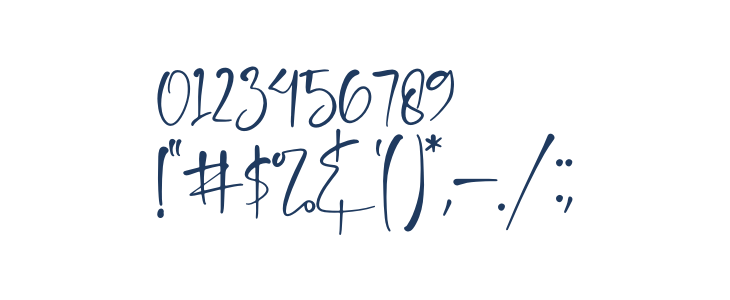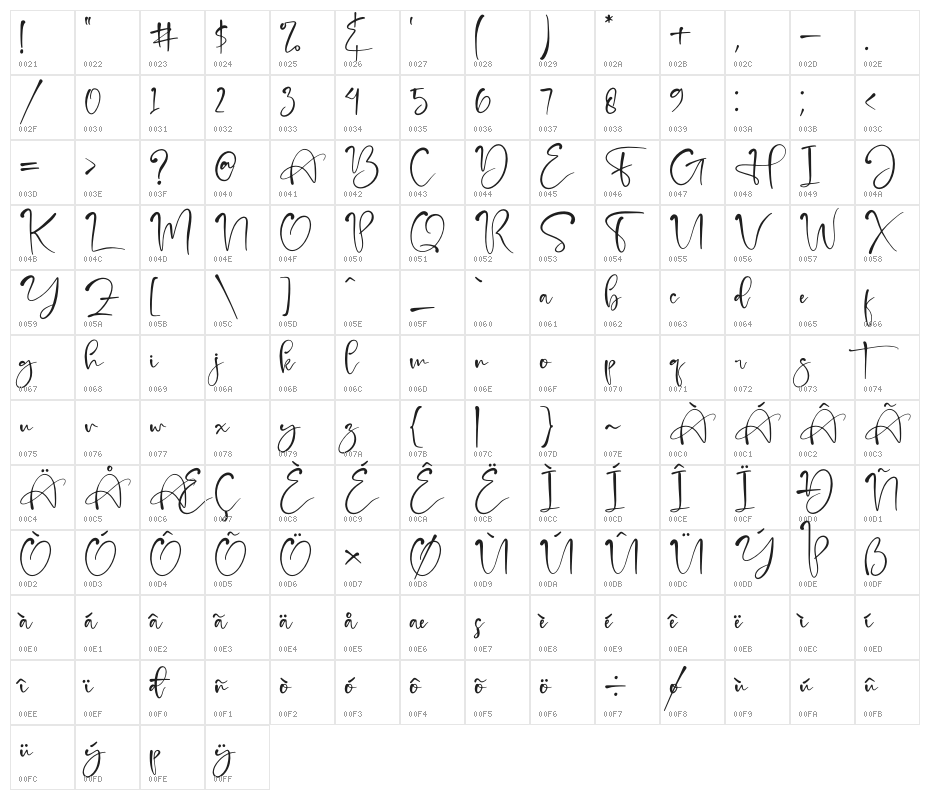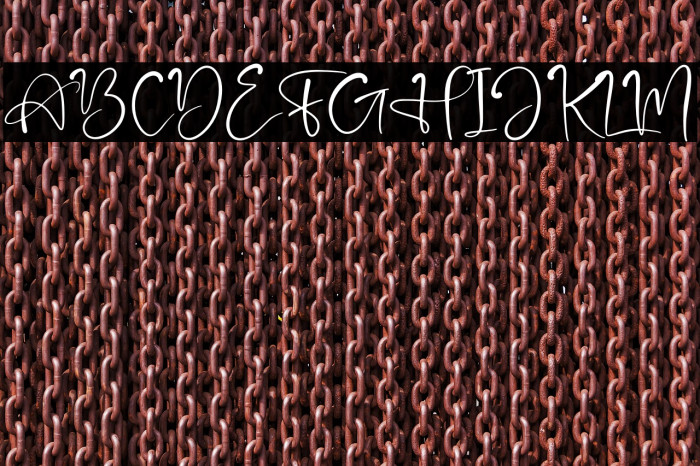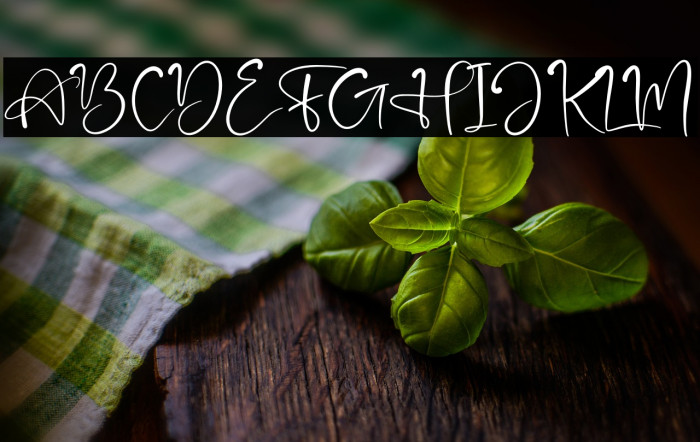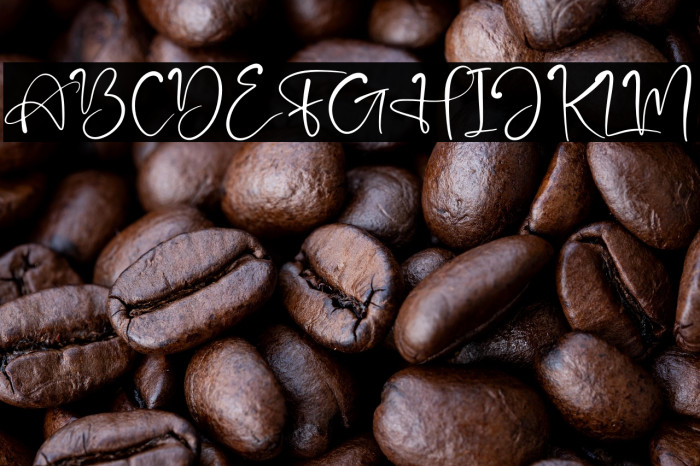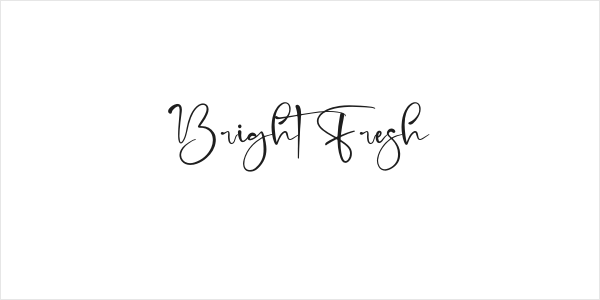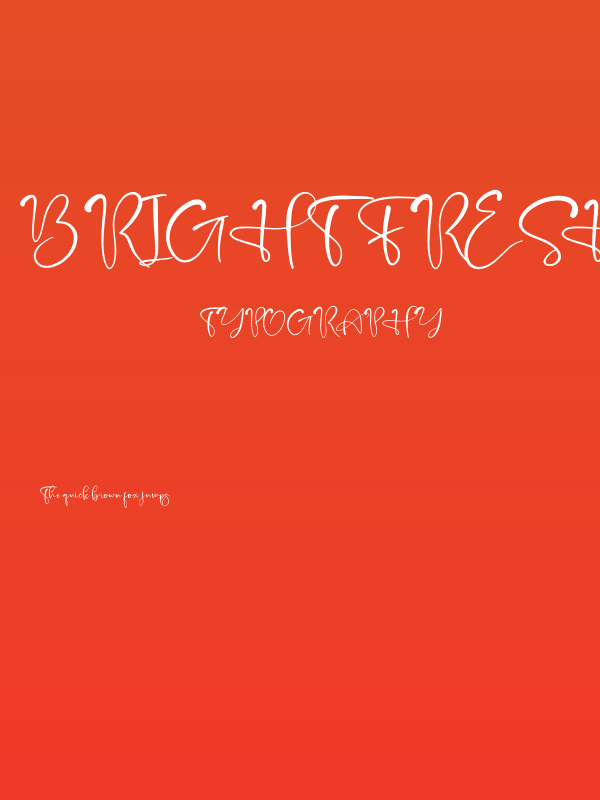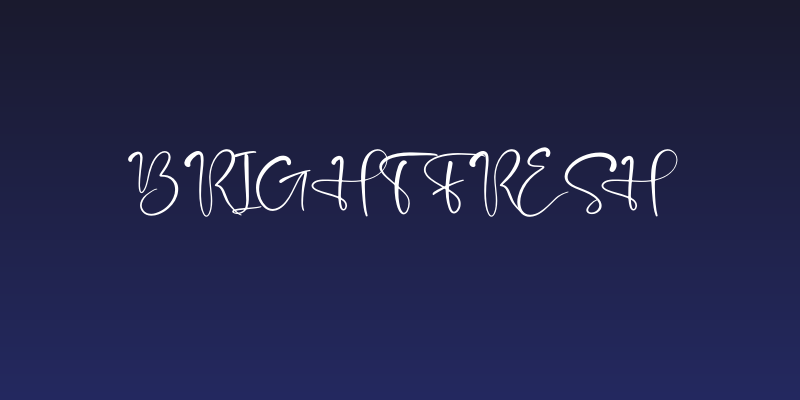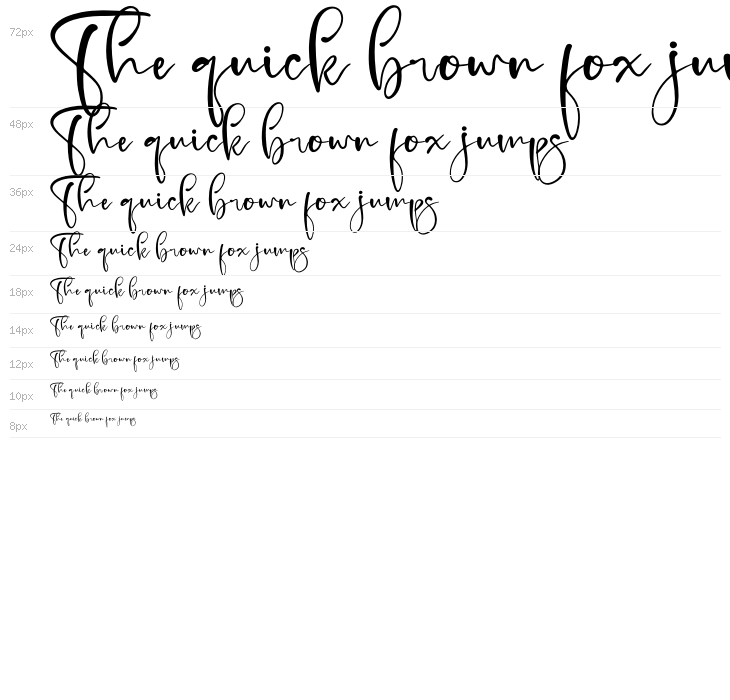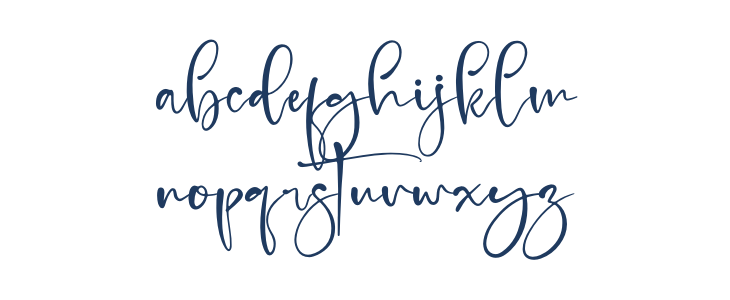
Bright Fresh Font
Bright Fresh Description
This font features an elegant and flowing script style, characterized by its smooth, continuous strokes and graceful curves. The uppercase letters are bold and expressive, with a slight slant that adds a sense of motion and fluidity. The lowercase letters maintain a consistent style, with some letters featuring unique loops and swirls that enhance its decorative appeal. The numerals are clear and legible, maintaining the same flowing style as the letters. Special characters are creatively designed, adding to the font's overall artistic flair. This font is perfect for projects that require a touch of sophistication and elegance.